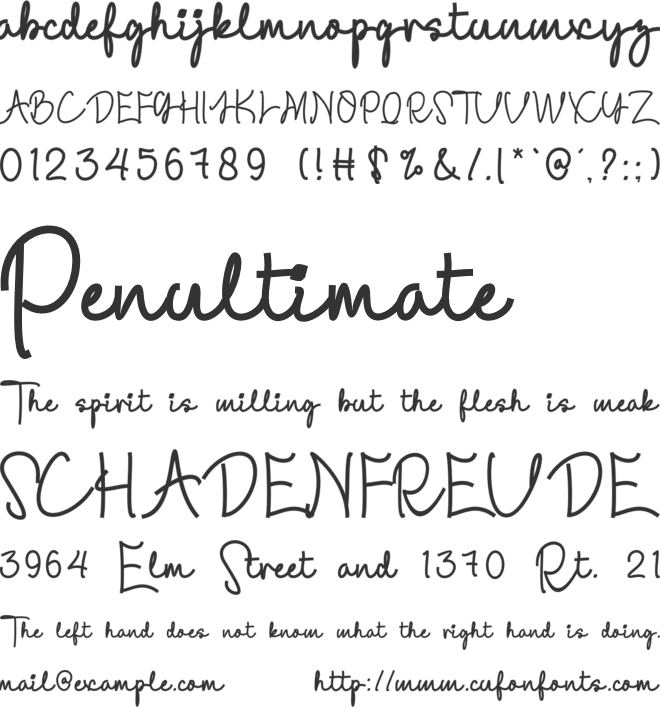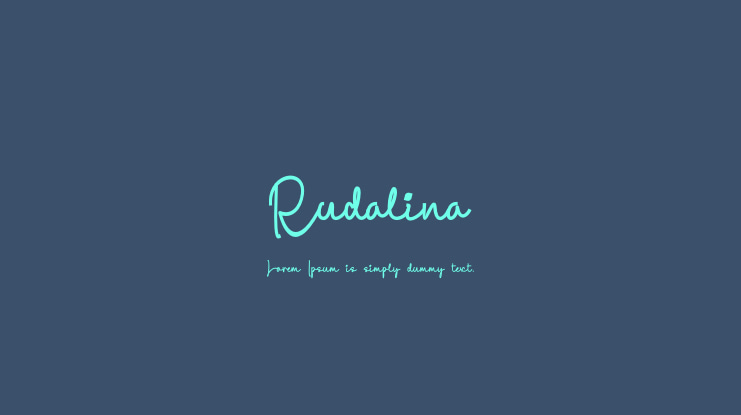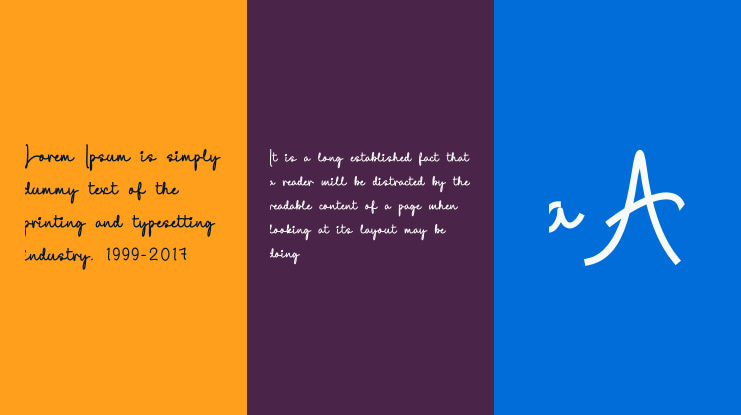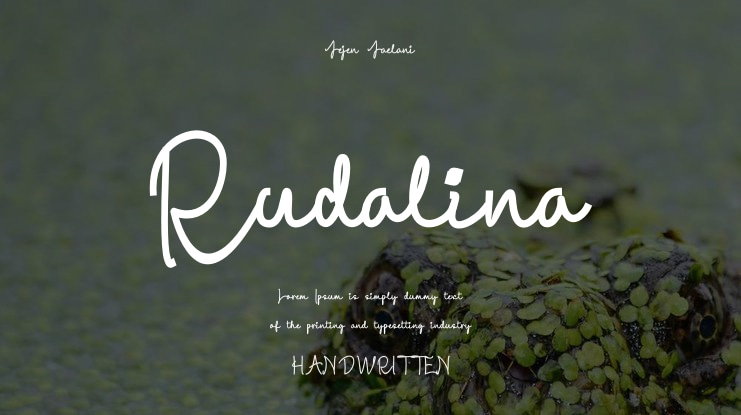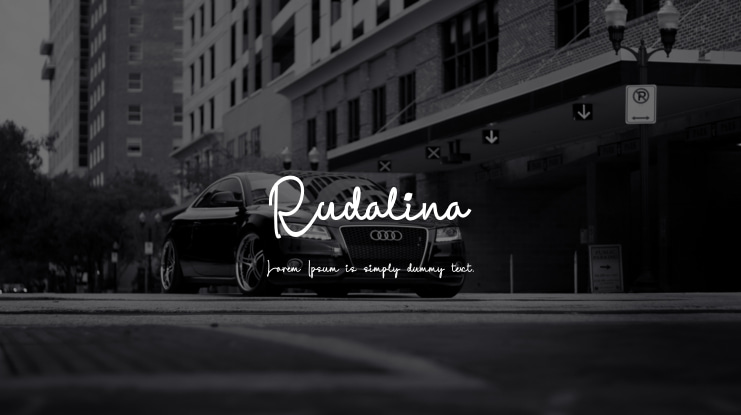
Rudalina Font
Introducing "Rudalina", an elegant Script font that exudes sophistication and charm. It features smooth, flowing letterforms with delicate curves, making it ideal for invitations, logos, branding, and romantic design projects. The fluidity of Rudalina’s strokes gives it a natural, handwritten feel while maintaining a refined and stylish appearance. Perfect for capturing a sense of elegance and creativity, this font blends modernity with timeless script tradition, ensuring versatility across various design needs.
• Numerals and Punctuation
• Multilingual Support